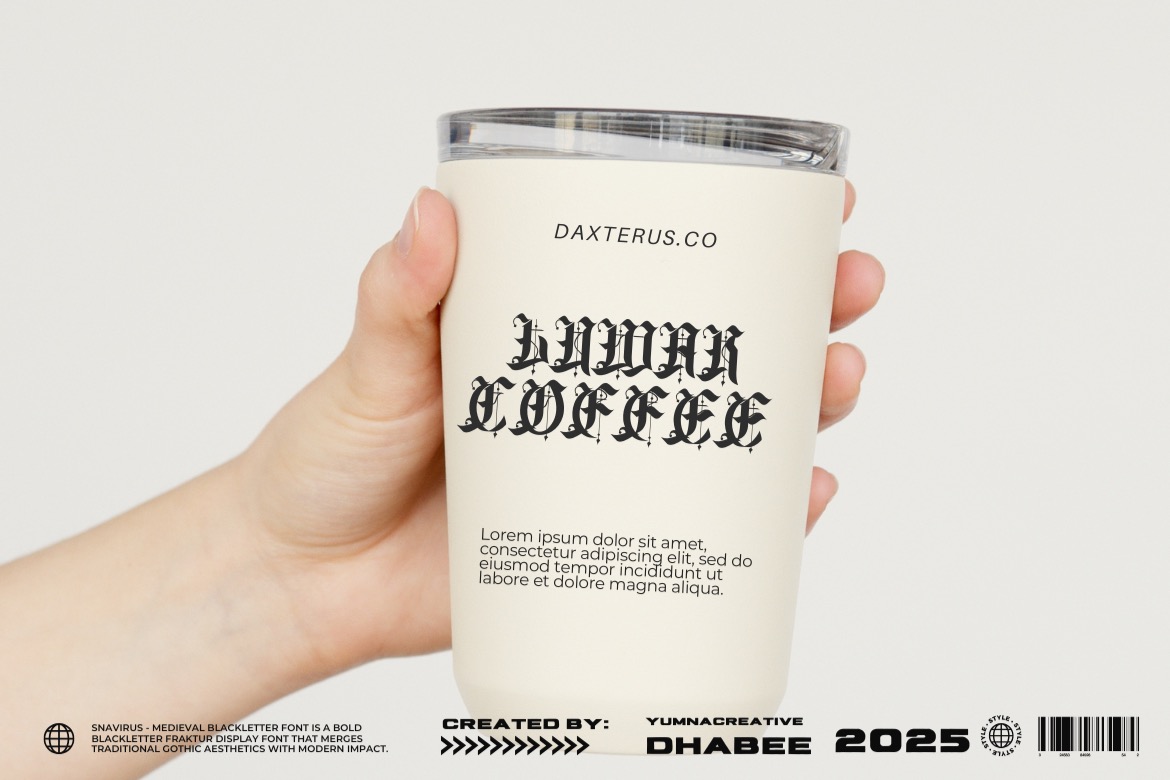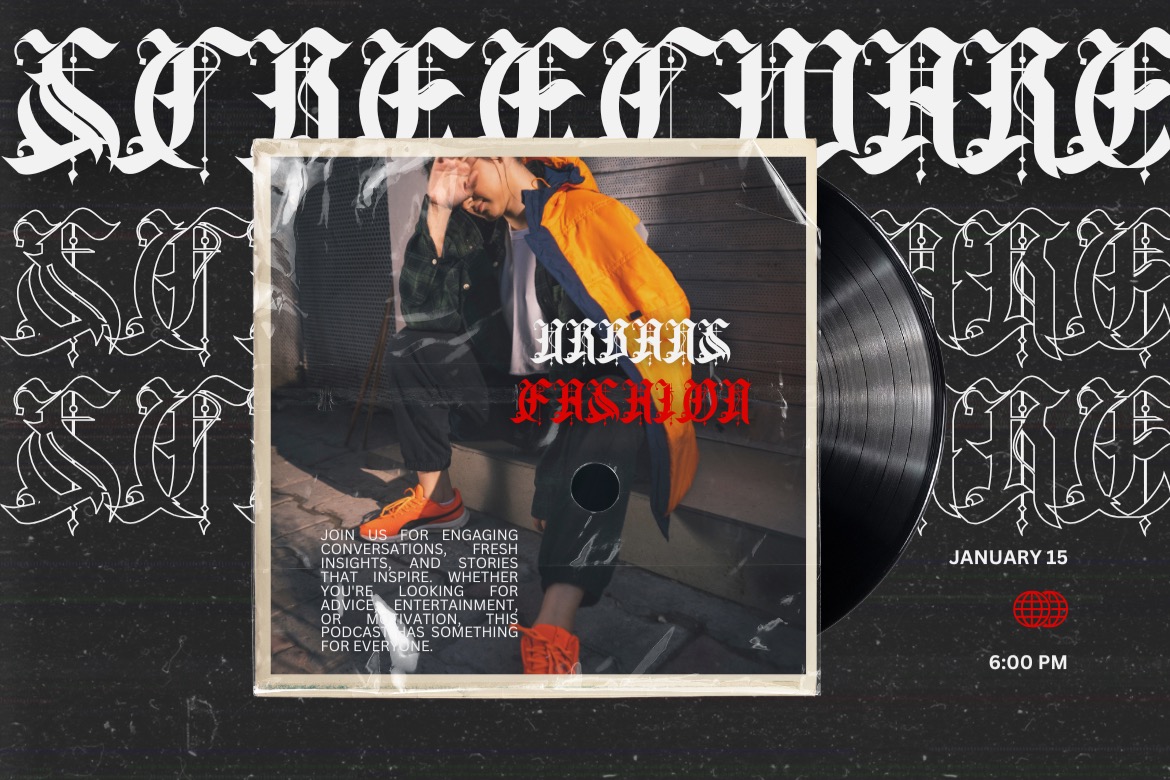
Snavirus is a blackletter display font with dark medieval weight and a clean, modern edge. It’s bold, ceremonial, and deliberately dramatic—made to lead the design, not sit quietly in the background.
At first glance, it feels like an official seal from an old kingdom: sharp, imposing letterforms that signal power, tradition, and a hint of danger. The silhouette is confident and sturdy, with angular cuts and high-contrast strokes that echo gothic architecture.
What makes Snavirus work so well is the tension between historic presence and contemporary punch. Depending on the layout, it can read sacred or sinister—perfect for visuals you want people to remember, not just skim. The classic blackletter structure brings gravitas, while the cleaner rhythm keeps it looking relevant on modern posters, covers, and branding.
It’s a strong fit for identity-driven projects: metal/hardcore artwork, streetwear drops, tattoo-inspired branding, dark-luxury packaging, barbershops, craft beverage labels, gothic fashion, fantasy worlds, gaming/esports identities, and event posters that need a commanding headline. With alternates and ligatures included, you can push it from strict and traditional to more expressive and custom—great for logotypes that should feel crafted rather than generic.
Personality-wise, Snavirus leans masculine, formal, and authoritative. It’s not playful by nature—more about prestige, edge, and presence. But paired with modern minimal layouts or softer imagery, it can shift into a refined, stylish neutrality while keeping its intensity.
Best for: logos and headlines, especially if you’re building around gothic heritage, underground culture, or a medieval-fantasy atmosphere.